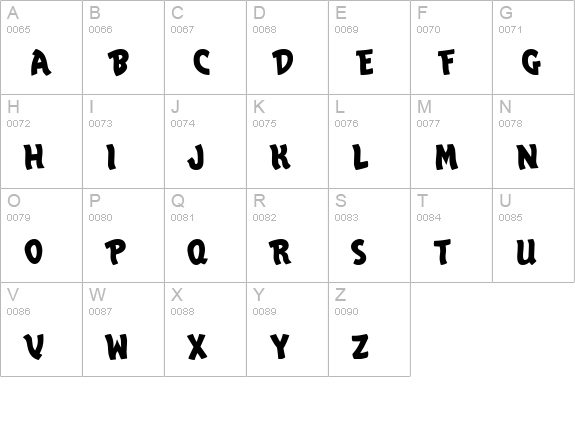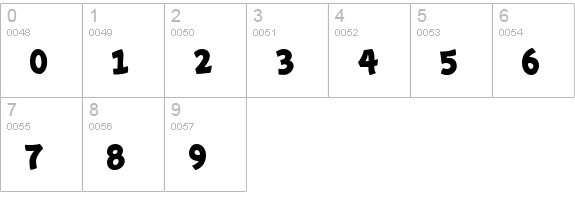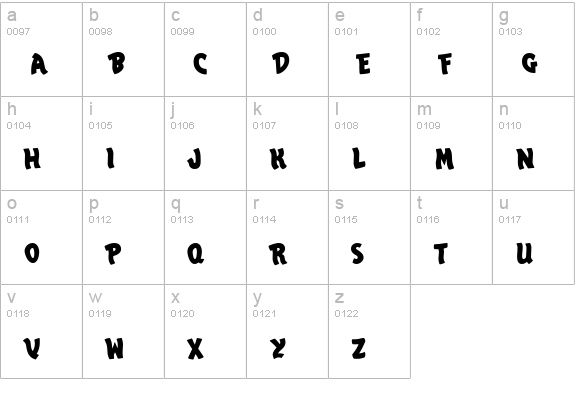
VegasCaravan Font Details
VegasCaravan font is a stunning display typeface that captures the vibrant spirit of the Las Vegas Strip. With its bold and dynamic letterforms, this typeface is perfect for adding a touch of excitement and glamour to any design project. The VegasCaravan font is inspired by the bright lights, neon signs, and bustling energy of the city that never sleeps. Each letter is meticulously crafted to evoke the feeling of a thrilling night out on the town. Whether used for headlines, logos, or promotional materials, this font is guaranteed to make a statement and captivate the audience. What sets VegasCaravan font apart is not only its captivating style, but also the fact that it is available for free download exclusively at FontsMarket.com. This means that designers, creatives, and enthusiasts can freely access and utilize this font without any financial limitations. It is a font that is designed to be accessible to all, empowering individuals to bring their visions to life without any restrictions. With VegasCaravan font, you can effortlessly elevate your designs and convey a sense of excitement, adventure, and luxury. Its versatility allows it to be used in a wide range of projects, from advertising and branding to invitations and social media graphics. So, if you are looking for a font that embodies the spirit of Las Vegas, look no further than VegasCaravan. Download it for free at FontsMarket.com and let the dazzling charm of this typeface take your designs to new heights.